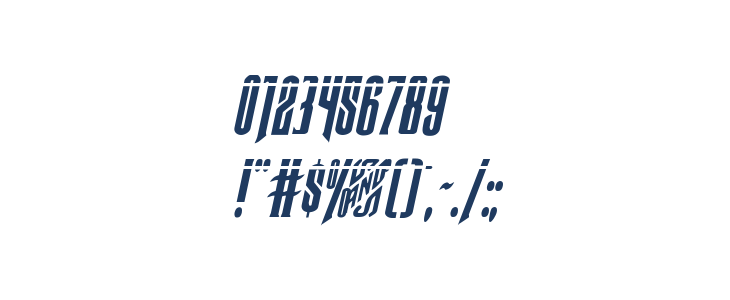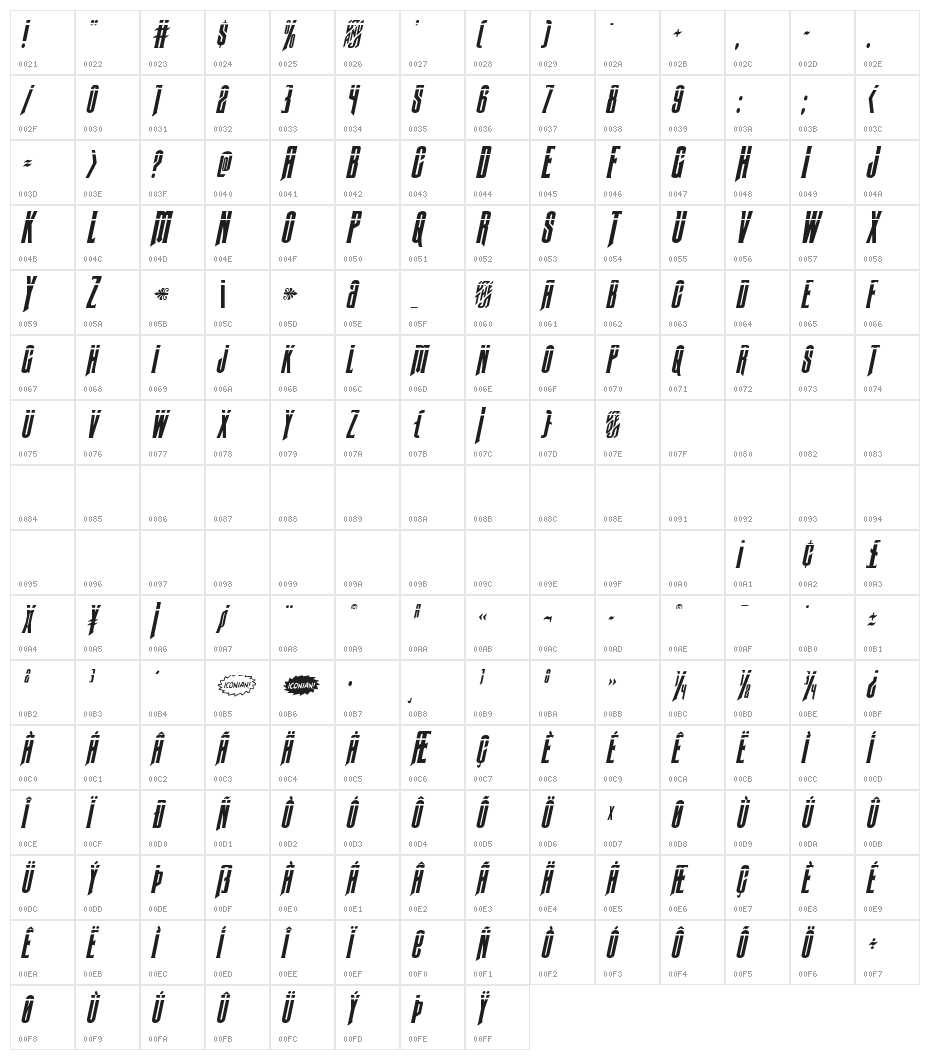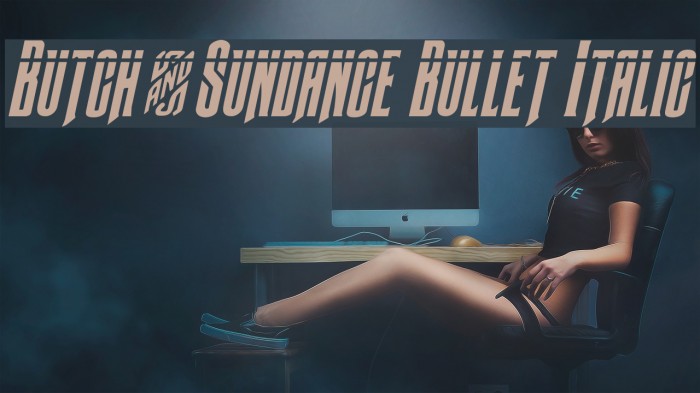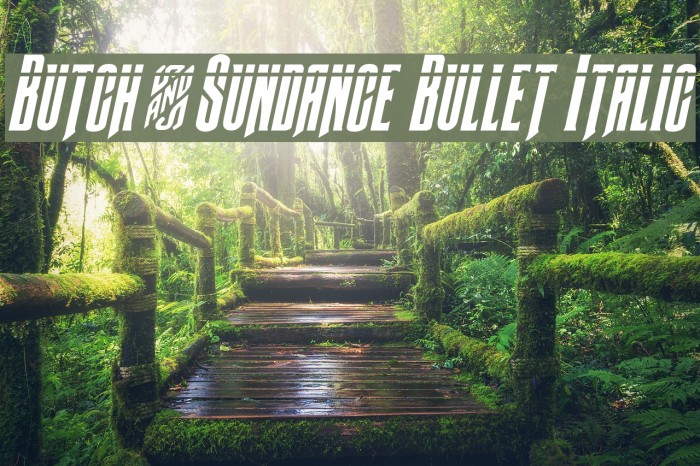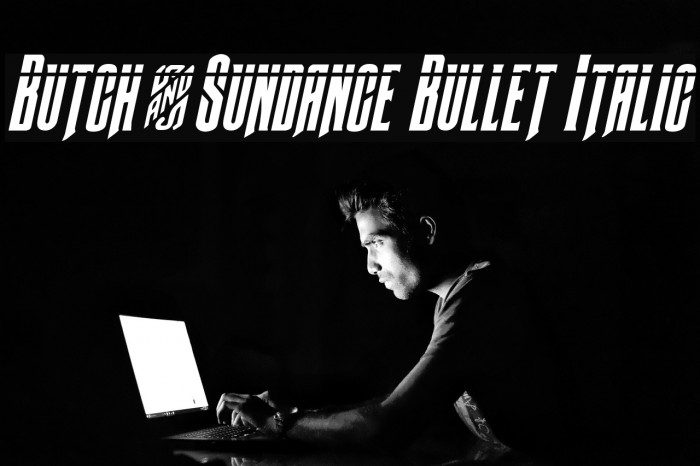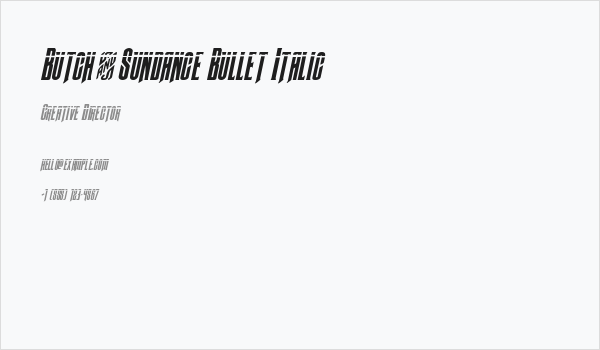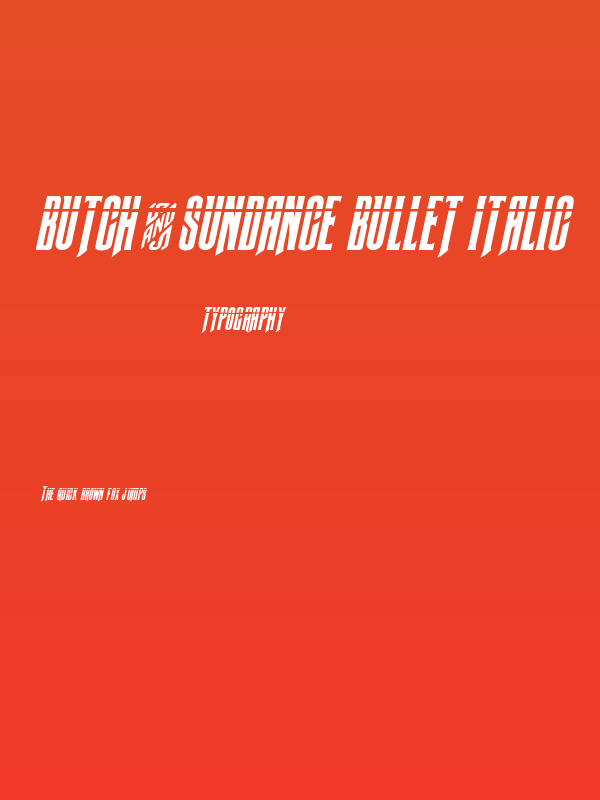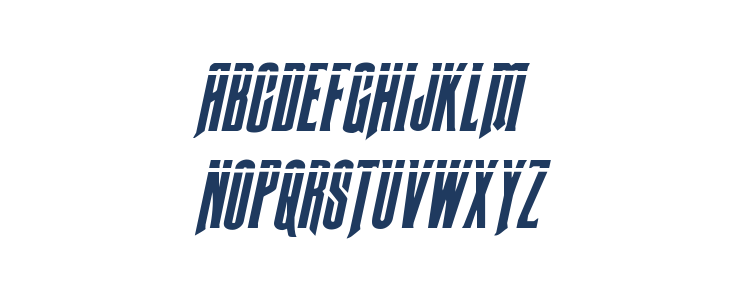
Butch & Sundance Bullet Italic Font
Butch & Sundance Bullet Italic Description
This font features a bold and dynamic design with a distinct italic slant, giving it a sense of motion and energy. The characters are sharply angled, with exaggerated serifs that add to its aggressive and impactful appearance. The uppercase and lowercase letters maintain a consistent style, with the uppercase being particularly prominent and commanding. The numerals and special characters follow the same bold and slanted style, ensuring uniformity across all elements. This font's unique style makes it stand out, making it suitable for projects that require a strong visual impact.
| Proposed Projects | Ideal for posters, logos, and branding projects that require a strong, dynamic presence. |